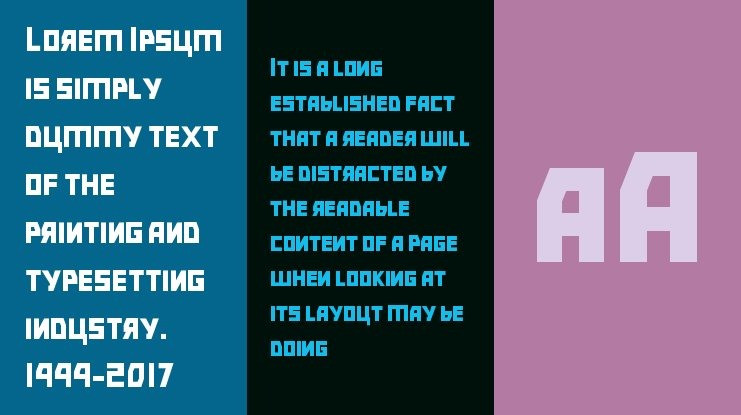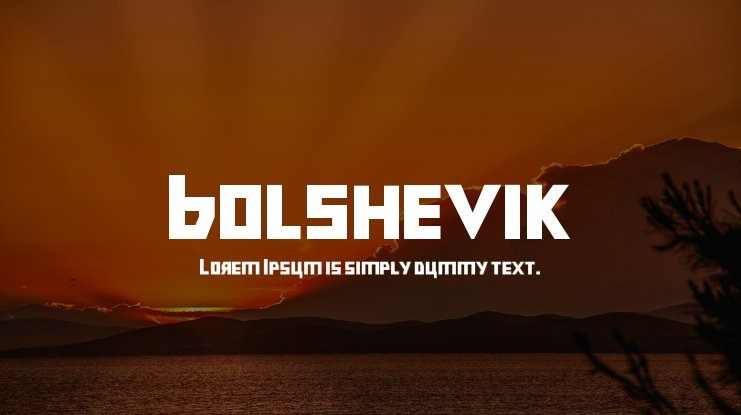
Bolshevik Display Font is inspired by several styles of lettering on Soviet Propaganda posters from World War 2 (or as the Russians call it, the Great Patriotic War).
Designed by Robert Jablonski, Jasper & Stig @ Cannot Into Space Fonts.